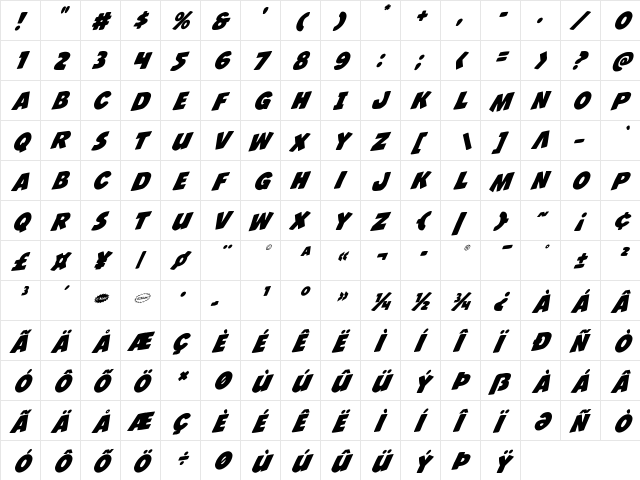
Jack's Candlestick Rotalic Italic
Design Context for Jack's Candlestick Rotalic Typeface
Jack's Candlestick Rotalic is a composed and adaptable typeface that performs quietly and consistently across a wide range of design contexts. Its italic angle brings a sense of urgency and motion to the letterforms.
Pro Tip: Try Jack's Candlestick Rotalic for annotation and caption copy alongside an upright companion — the contrast in angle creates a dynamic but ordered typographic system.